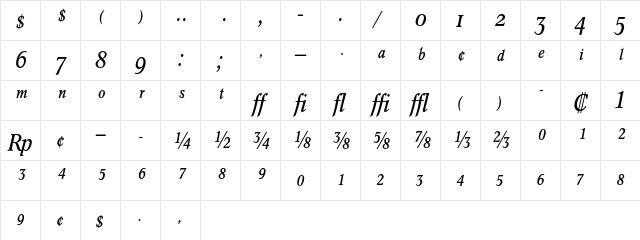
Concorde Nova Italic Expert
Design Context for Concorde Nova Typeface
Concorde Nova is a composed and adaptable typeface that performs quietly and consistently across a wide range of design contexts. Its italic angle brings a sense of urgency and motion to the letterforms.
Pro Tip: Use Concorde Nova for emphasis, pull quotes, and subheadings where its slanted energy can add rhythm to the layout.